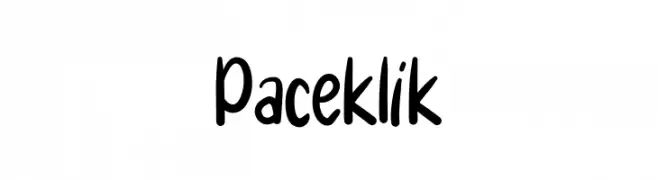
A fluid and elegant script font with a handwritten feel.
A bold, geometric font with a modern, angular design.
A bold, energetic handwritten font with dynamic strokes.
A playful, handwritten font with smooth, rounded edges and a casual style.
A bold, dynamic font with a slightly condensed and energetic style.
An elegant script font with flowing, cursive letterforms and decorative flourishes.
A lively and elegant script font with smooth, flowing strokes.
A cursive script font with elegant, flowing strokes and interconnected letters.
A modern, dotted font with a digital, pixelated style.
A bold, playful script font with interconnected letters and dynamic flow.